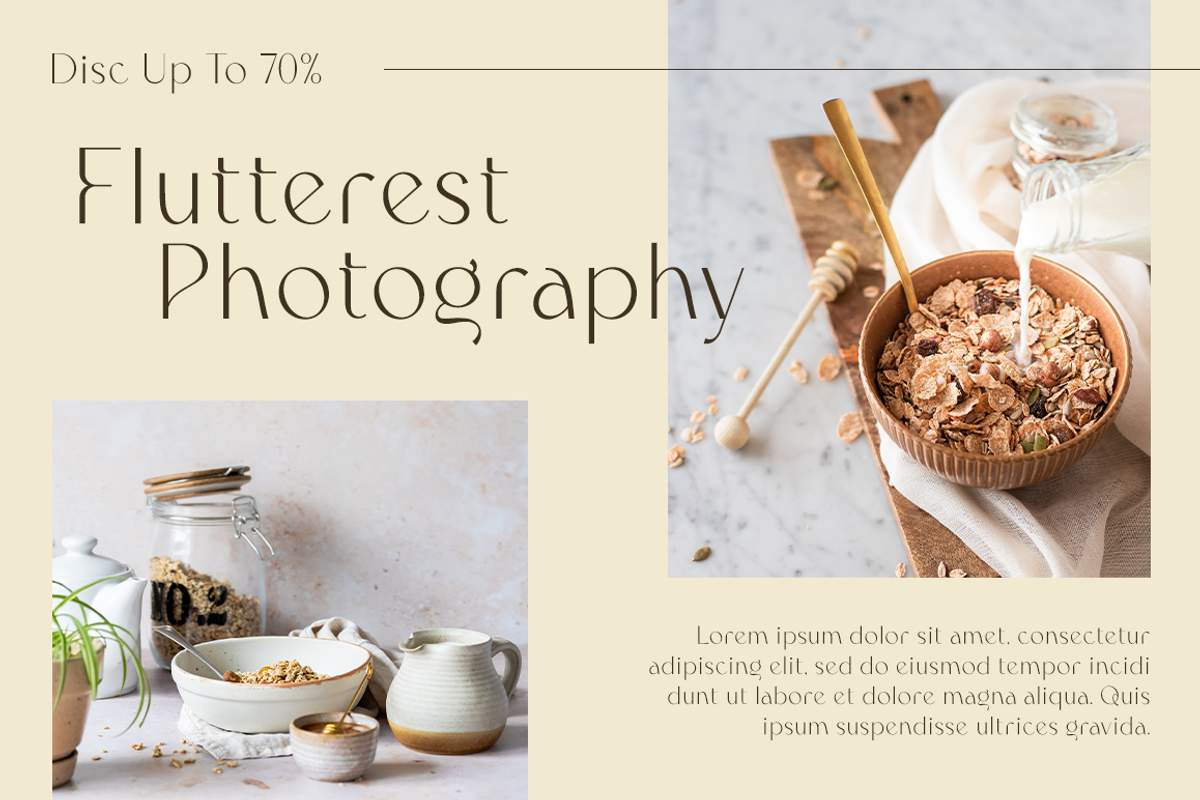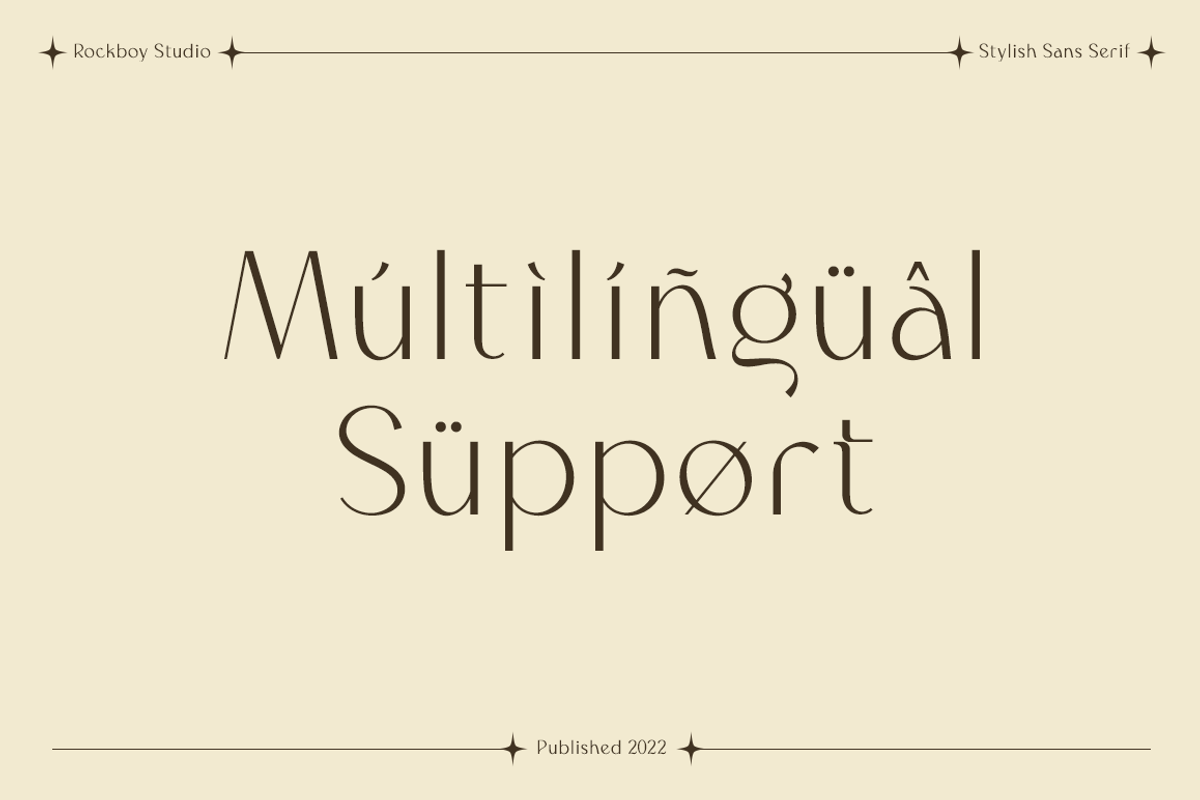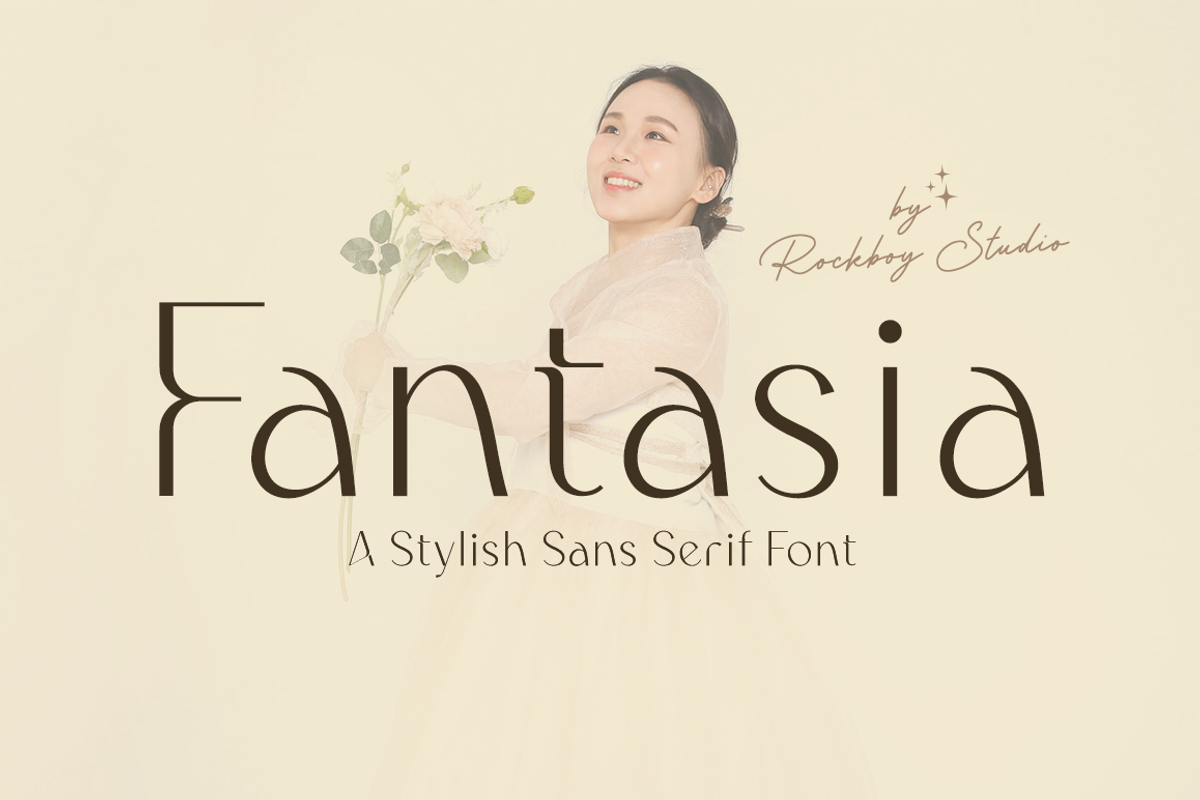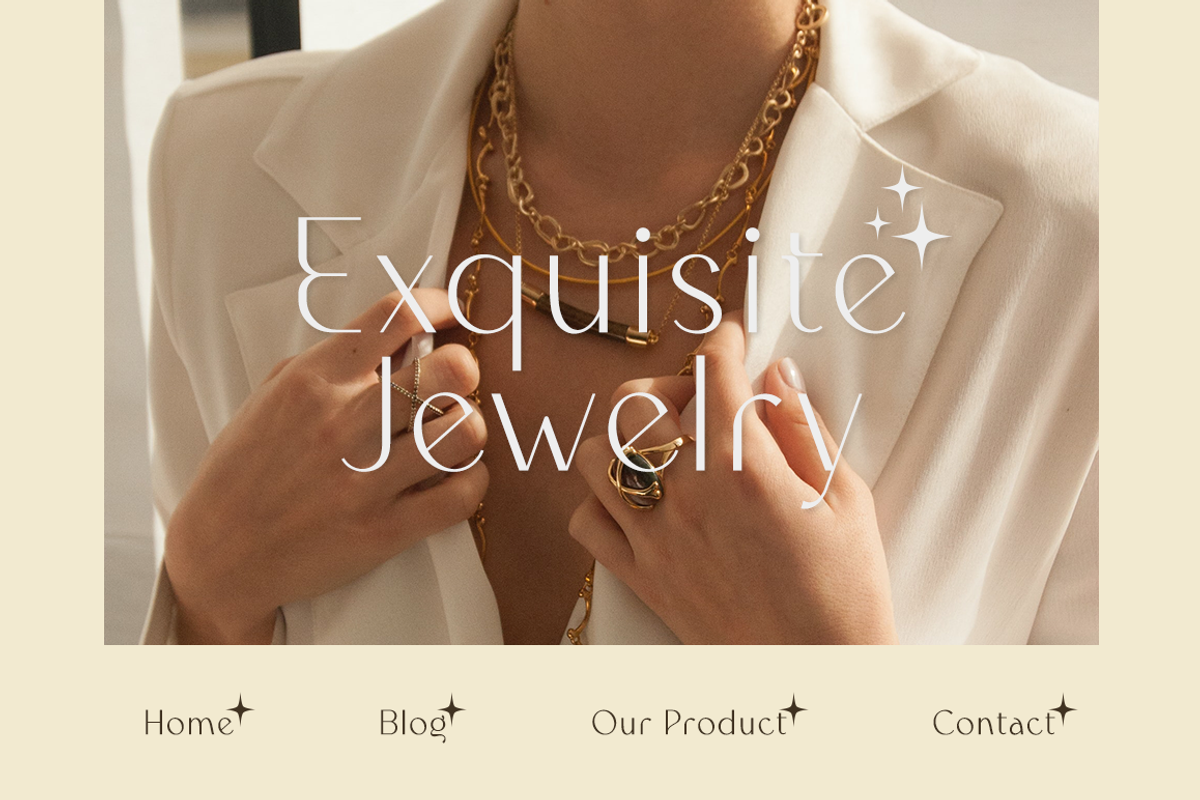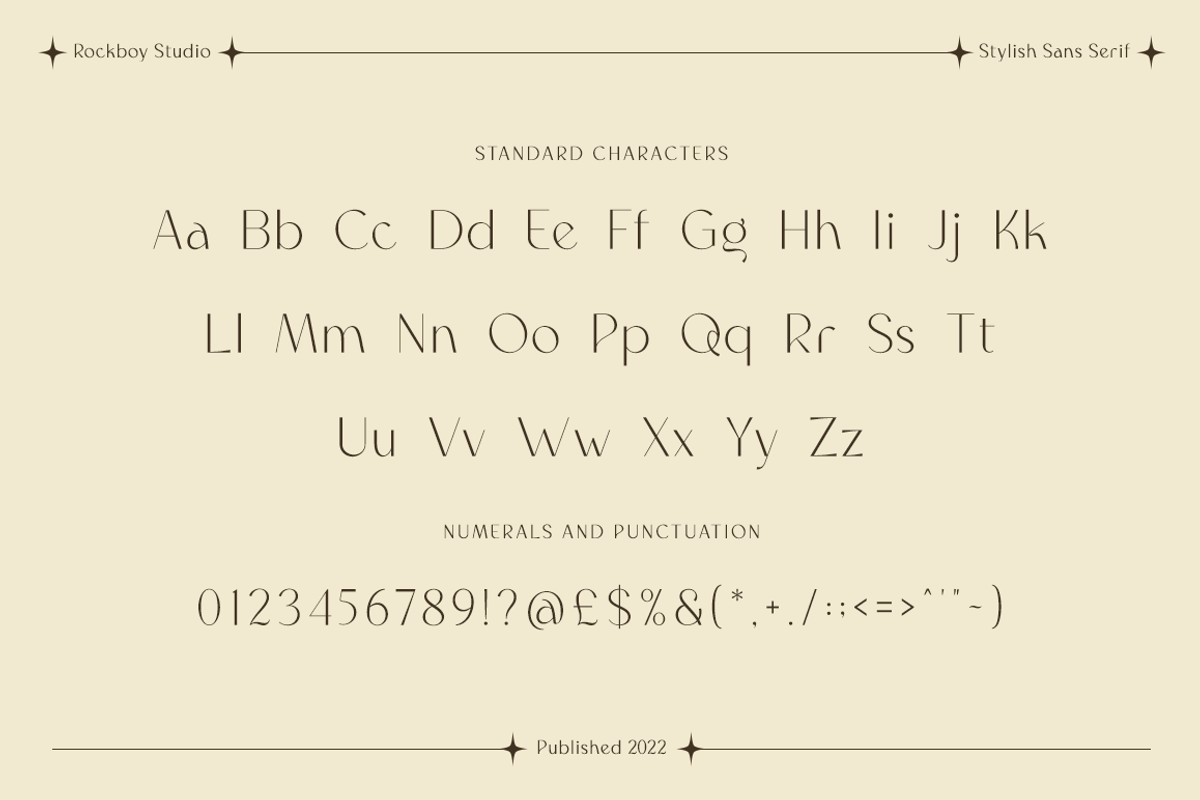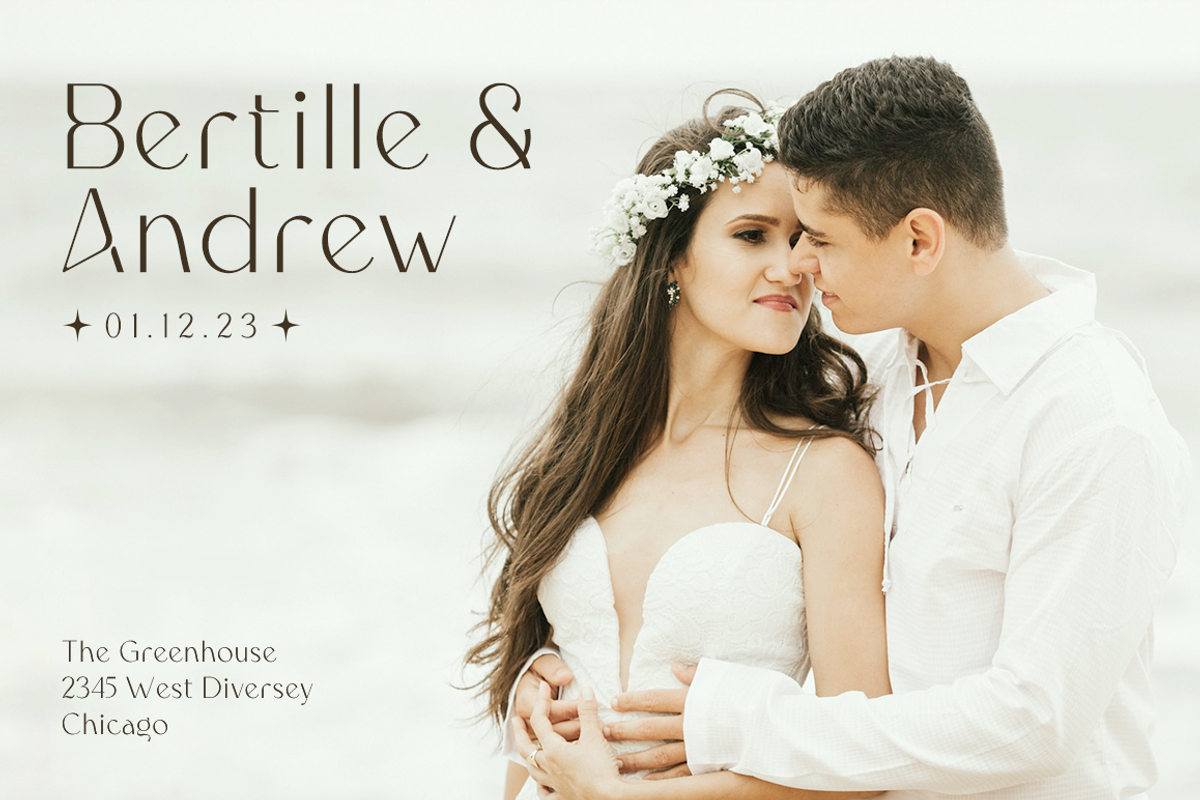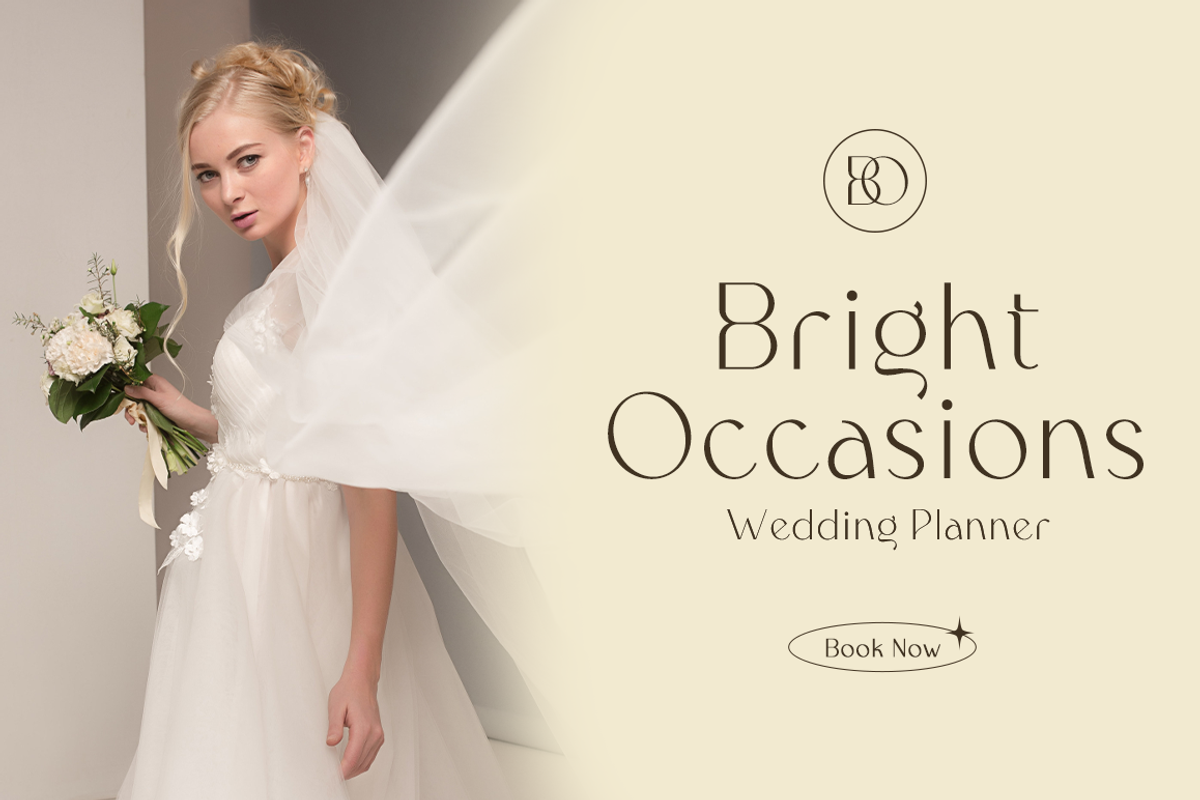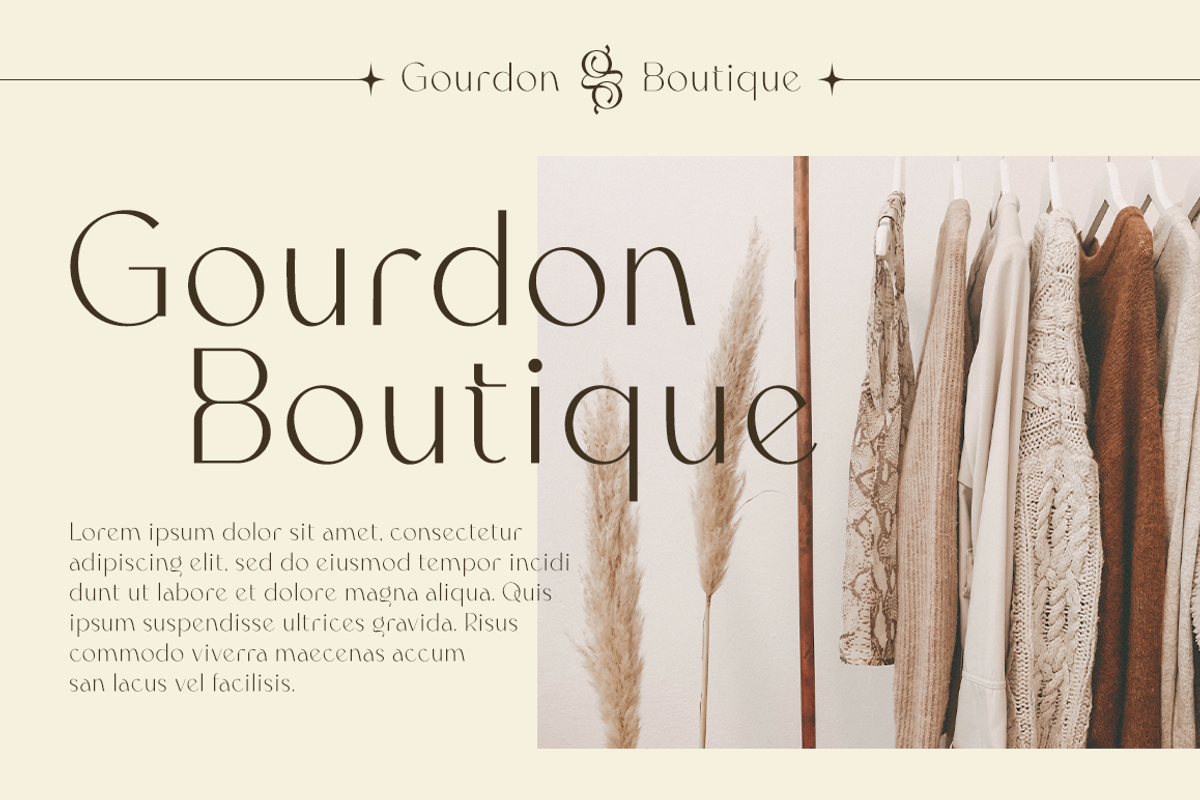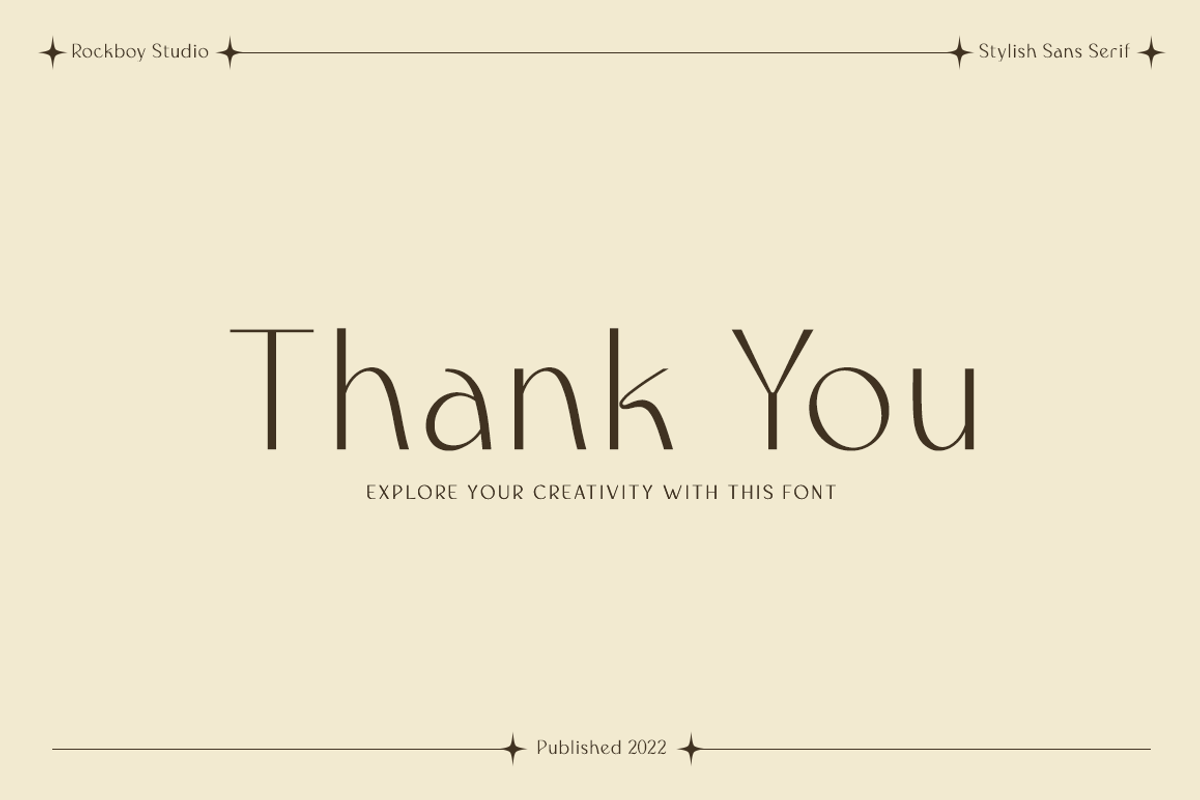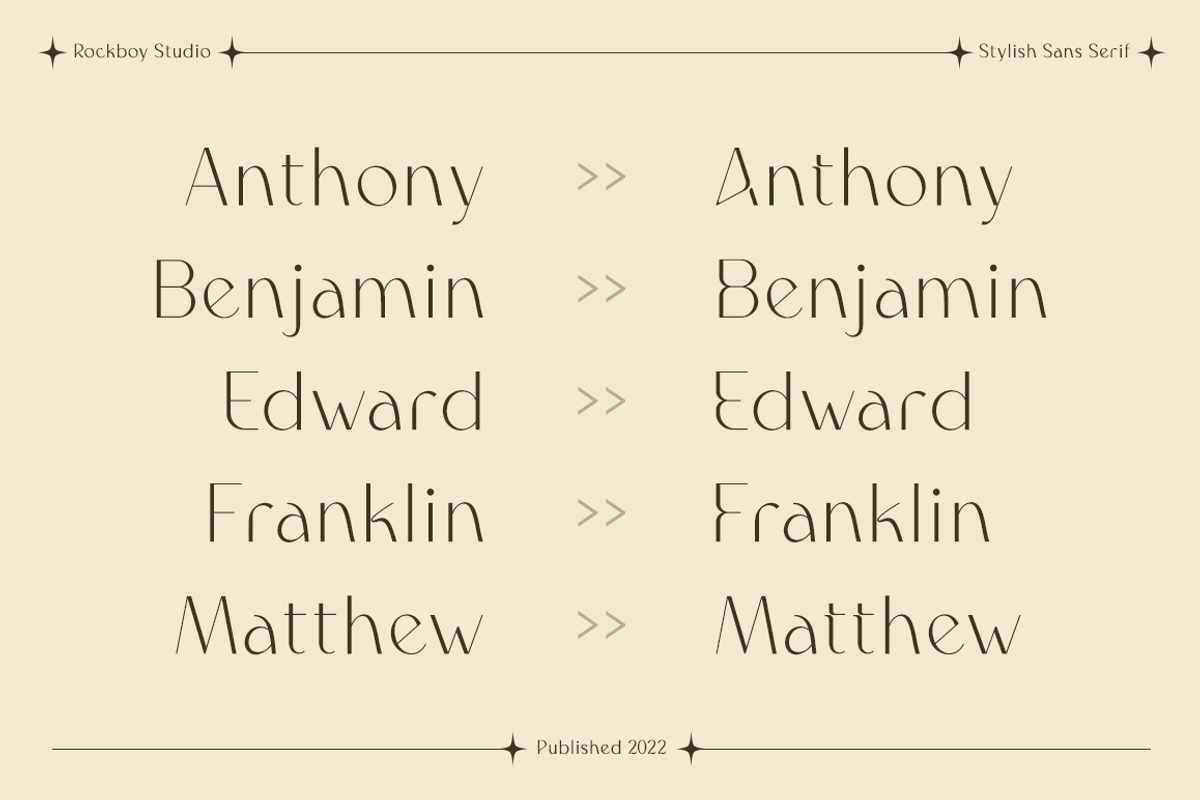
Fantasia - Modern Stylish
Fantasia is an elegant and beautiful sans serif font. It will elevate a wide range of crafting ideas, from cards to branding, labels, and many more. Add it to any of your creative projects, and make them extraordinary!